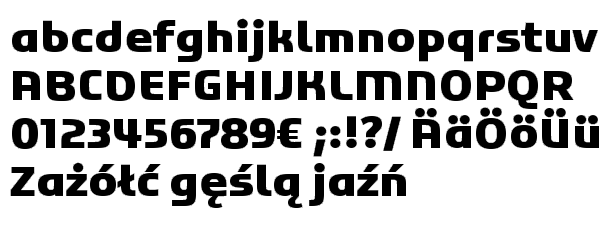
Manuel
Font zaprojektowany przez Volker Schnebel, w roku 2010
Manuel, a simple, almost mathematically constructed typeface, includes stylistic alternates for a number of upper case characters. This comes in very helpful when designing logo letterings. Manuel(a) is a very charming, self-confident und exciting typeface design. The idea was to try to apply a given design criteria (also see Volker Schnebel’s Marita and Martin fonts) to every single character. In other words, start with a character and develop all of the others from it. This is quite easy for some characters but extremely difficult for others. This process generates creativity and the characters move away from the initial constructed sketch. Together in a typeface, the individual characters are now all of a piece and character.
Manuel Pro